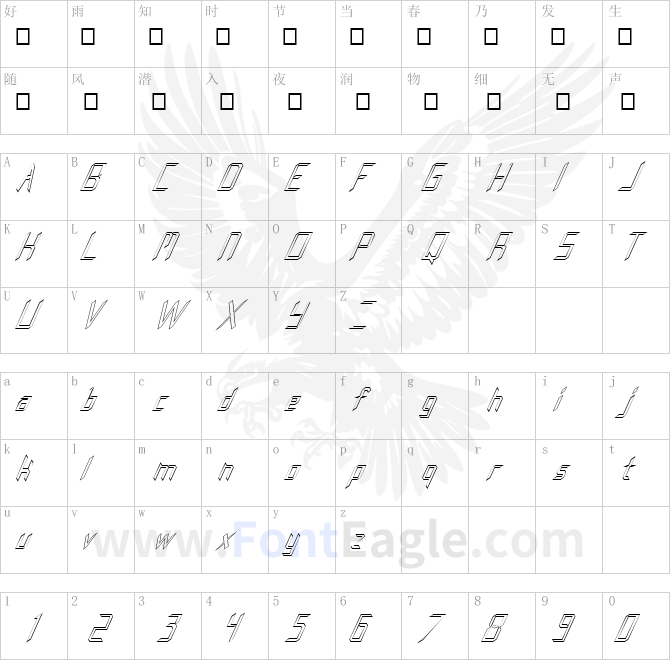
- Font name:FZ DIGITAL 8 HOLLOW ITALIC
- Font Subfamily ID:FZ DIGITAL 8 HOLLOW ITALIC
- Font Full Name:FZ DIGITAL 8 HOLLOW ITALIC
- Postscript:FZ-DIGITAL8HOLLOWITALIC